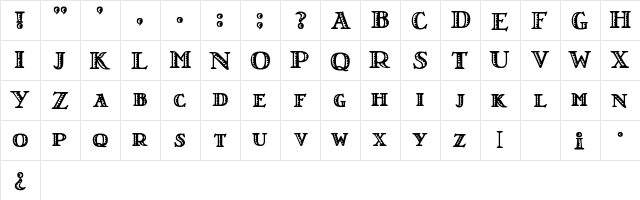
LRT Nutshell Library Regular Font Preview
LRT Nutshell Library Regular
Design Context for LRT Nutshell Library Typeface
LRT Nutshell Library is a composed and adaptable typeface that performs quietly and consistently across a wide range of design contexts.